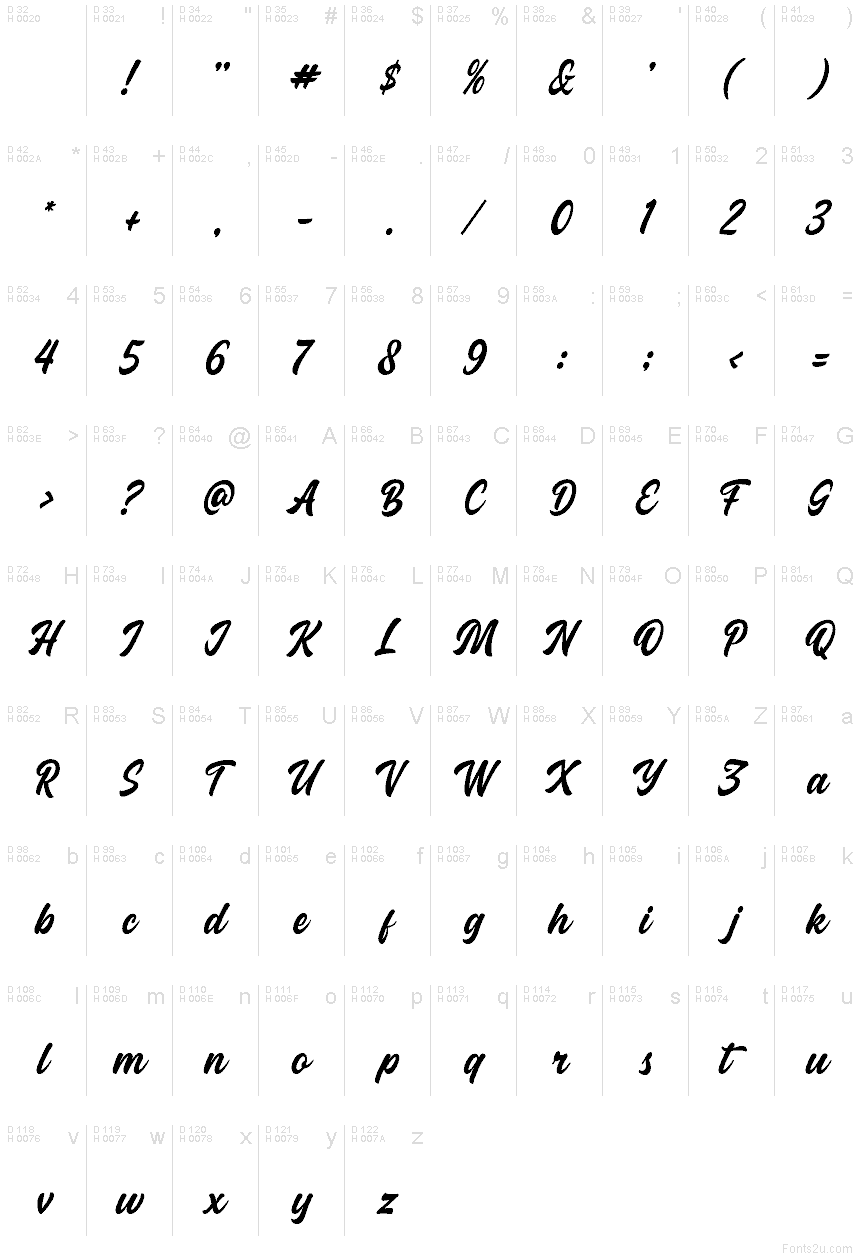
UrbanShadow-Script
Urban Shadow Script font by Blankids is a free brush script font. It sweeps across the line with a confident rightward slant, thick inky downstrokes, and quick, elastic joins that feel freshly painted. The texture is smooth rather than gritty, giving it that clean “street sign meets studio marker” vibe, with lively rhythm and compact spacing that holds together in bold headlines.
Using Urban Shadow Script, you’ll get punchy energy for logos, apparel graphics, product packaging, event posters, café menus, stickers, and social posts. Its steady contrast reads fast at a glance, while the cohesive flow keeps wordmarks tight and memorable. Pair it with a condensed sans for details, and give it a touch of extra tracking at large sizes to let the brushwork breathe in this free font.